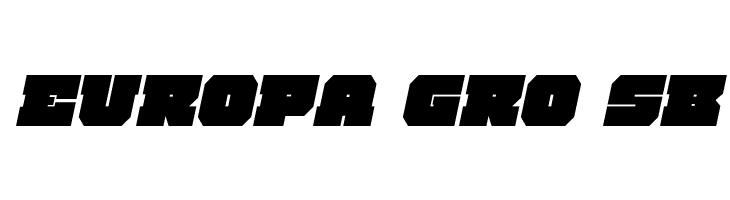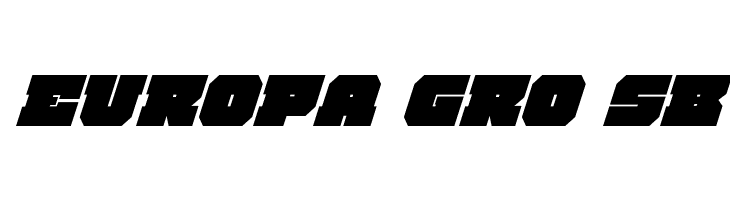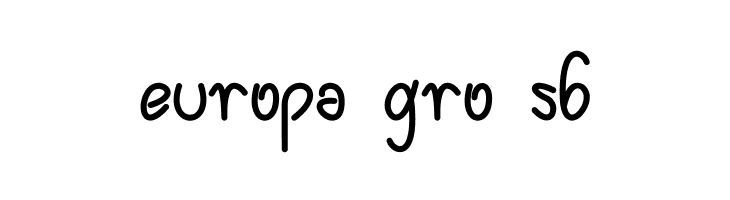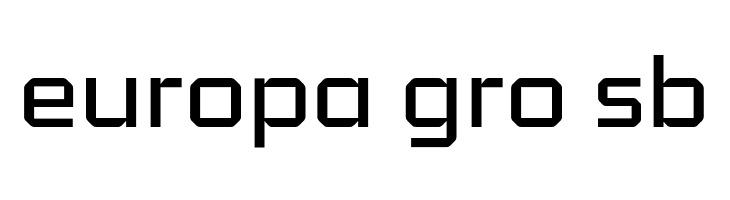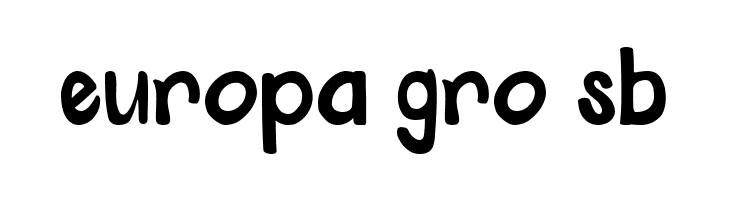
A bold, 3D outlined font with angular, blocky characters.
A bold, geometric, and condensed font with a strong, industrial style.
A bold, condensed, and italic font with a geometric and dynamic style.
Bold, condensed, semi-italic font with sharp, angular edges.
A bold, expanded, and italicized font with a futuristic and dynamic style.
Bold, geometric font with an expanded width and semi-italic slant.
A bold, striped font with a gradient effect, perfect for modern and impactful designs.
A bold, italicized font with a gradient effect and dynamic, futuristic design.
A bold, geometric font with a halftone pattern and layered appearance.
A bold, italicized font with a halftone effect and modern appeal.
A bold, geometric font with an italic slant, perfect for futuristic designs.
A bold, angular font with a strong geometric style.
A bold, semi-italic font with angular, block-like characters for a modern, dynamic look.
A bold, italic, and geometric font with a futuristic and industrial feel.
A modern, high-contrast font with sleek, elegant strokes.
A sleek, ultra-light font with a modern and minimalistic design.
A bold, geometric typeface with a modern and technical aesthetic.
A geometric, modern font with clean lines and consistent stroke width.
A modern, geometric font with clean lines and a structured appearance.
A modern, geometric font with clean lines and a structured design.
A bold, dynamic brush script font with energetic strokes and a hand-painted feel.
A bold, condensed font with a modern and impactful style.
A bold, condensed, and italic font with high contrast, ideal for impactful designs.
A sleek, minimalist font with thin, elongated characters and a modern aesthetic.
A modern, italic font with clean lines and a professional appearance.
A sleek, extra-light italic font with a modern and sophisticated style.
A modern, geometric font with clean lines and a sleek, contemporary style.
A playful, handwritten font with rounded edges and heart-shaped dots on 'i' and 'j'.
A playful, rounded handwritten font with smooth curves and a friendly appearance.
A playful, casual handwritten font with fluid, connected letterforms.
A playful, bold, and hand-drawn font with rounded edges.
A decorative font featuring detailed knight helmets as characters.